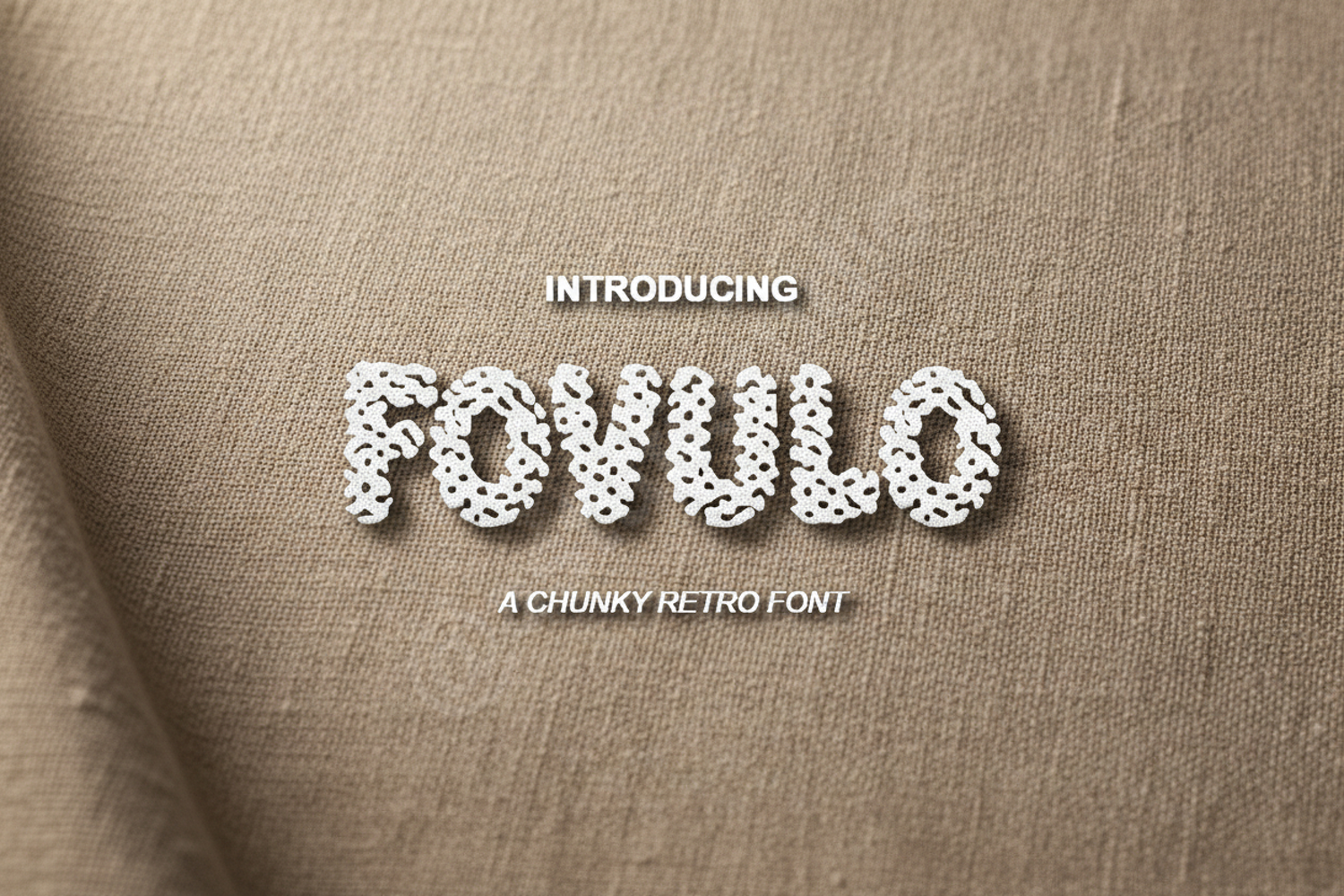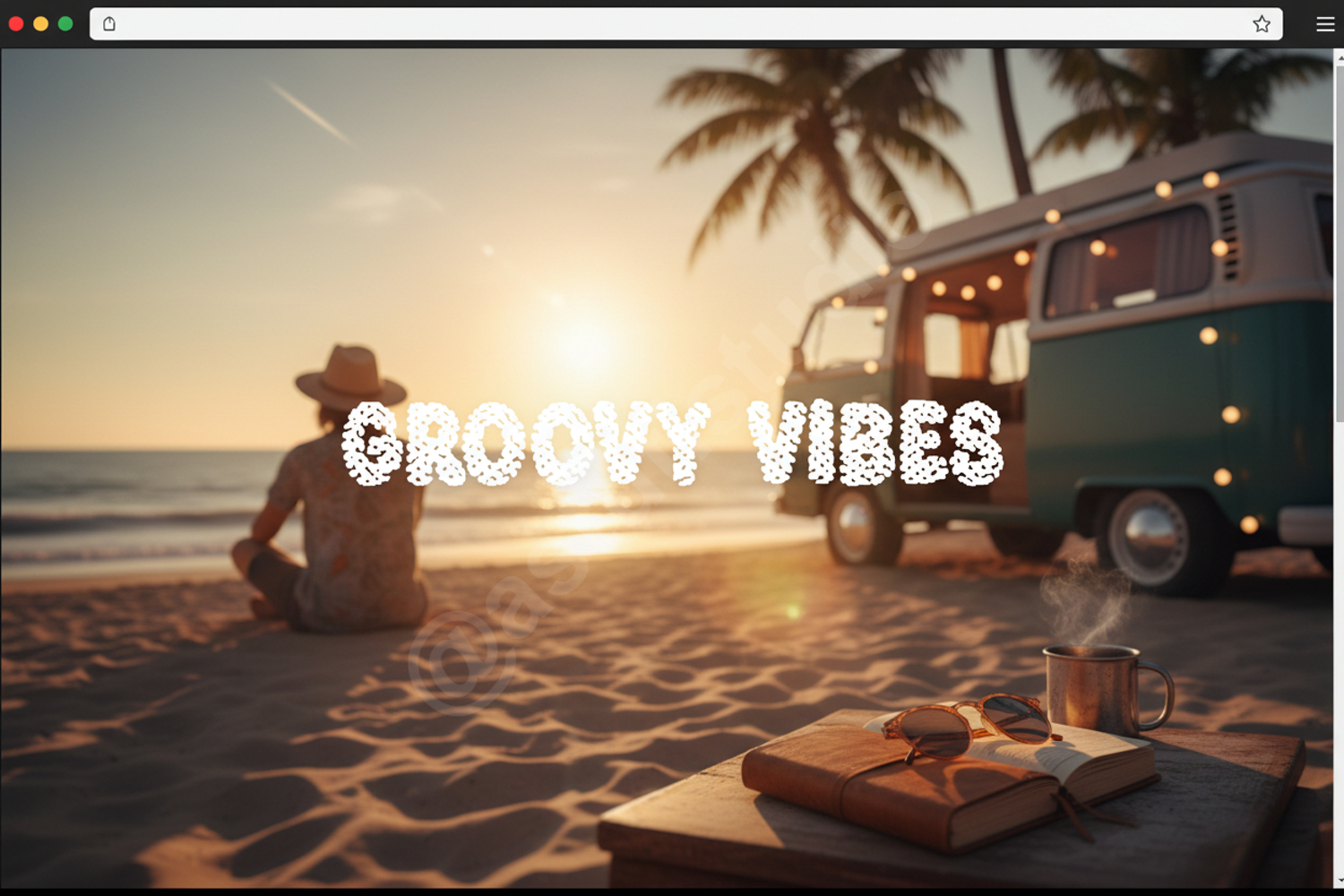
Fovulo - Modern Minimalist Sans Serif
Fovulo
Elevate your creative projects with Fovulo, a premium sans serif typeface designed for clarity and sophistication. Fovulo balances geometric precision with a modern aesthetic, making it an essential addition to any designer's toolkit. Whether you are crafting a high-end brand identity or a clean editorial layout, this font delivers a professional and polished finish every time.
- Full set of uppercase and lowercase letters
- Comprehensive numbers and punctuation
- Multilingual support for global reach
- Branding and Identity: Create memorable logos and corporate stationery that stand out.
- Editorial Design: Perfect for headlines, body text, and sophisticated magazine layouts.
- Web and App Design: Ensure high readability and a clean user experience across all digital platforms.
- Social Media: Design eye-catching graphics for Instagram, Pinterest, and professional LinkedIn content.
- Advertising: Build impactful marketing materials and promotional banners that demand attention.